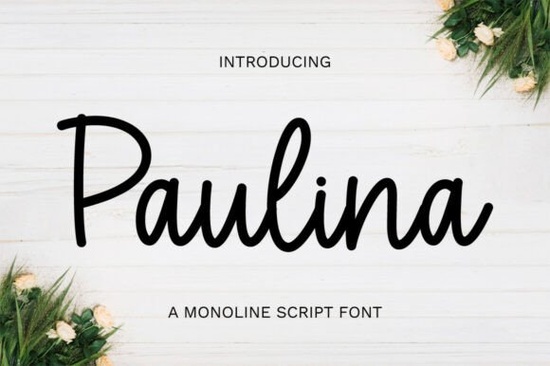
Finding a script font that feels both elegant and easy to read can be tricky. Paulina Font is one of those rare typefaces that strikes a lovely balance. It’s a graceful, well-balanced script with smooth curves, and it works beautifully for anything from fashion branding to editorial layouts. If you’ve been searching for a handwritten-style font that doesn’t sacrifice clarity, Paulina is worth a close look. You can find it over at Paulina.
What does the Paulina font look like?
Paulina is a flowing script font with a natural, calligraphic feel. The letterforms are well-balanced, meaning no single character feels too heavy or too light. The strokes have a slight contrast thicker on the downstrokes, thinner on the upstrokes which mimics real penmanship. The terminals and swashes are smooth, not overly ornate, so the font keeps a clean, modern look while still feeling personal. It’s the kind of typeface that adds a hand-touched elegance without becoming fussy.
Because the curves are gentle and the spacing is even, Paulina reads well at larger sizes. That makes it suitable for headers, logos, and short quotes, but you can also use it for accent lines on invitations or product packaging.
Who should use Paulina?
This font fits a range of projects, but it shines brightest for certain audiences:
- Fashion designers and boutique owners looking for a signature logo or hangtag script.
- Print-on-demand sellers creating mugs, tote bags, or t-shirt designs with a romantic or chic vibe.
- Wedding stationery designers who need an elegant invitation font that feels personal but not too casual. If you want a slightly more decorative alternative for weddings, you might explore another graceful option that pairs well with Paulina.
- Small business owners crafting their own social media graphics or website headers.
- Crafters and scrapbookers who like to add beautiful text to their projects.
How does Paulina compare to other script fonts?
There are many script fonts out there, each with its own personality. Paulina leans toward refined simplicity. Unlike some heavily flourished scripts, it stays legible and doesn’t distract from the message. If you’ve ever tried a font that was too thin or too swirly for a logo, you’ll appreciate Paulina’s sturdiness.
For instance, Ellegrin offers a similar lightness but with a slightly more playful feel you can learn more about it here. Delightful Handwriting, on the other hand, has a warmer, more casual tone, while still remaining neat you can read about it in this comparison. If you need something with a strong signature style, Amorate Signature has a bolder, more dramatic swash, perfect for high-end branding you can check out the details in this overview. Paulina sits in the sweet spot: elegant but not overly formal, modern but still warm.
Where does Paulina work best in a design?
This font thrives in specific contexts where you want to add a touch of sophistication without overwhelming the viewer. Some ideal uses:
- Logo design: Fashion labels, beauty brands, or lifestyle blogs.
- Editorial spreads: Magazine pull quotes or feature titles.
- Product packaging: Cosmetics boxes, candle labels, or gourmet food tags.
- Social media banners: Announcements, motivational quotes, or event promotions.
- Greeting cards and invitations: It adds a personal, hand-lettered feel that digital-only fonts sometimes lack.
Because Paulina’s smooth curves are easy on the eyes, it works in both print and digital formats without losing its shape. Even at smaller sizes, the letters remain distinct though for body text, you’ll still want a simple sans-serif companion.
How can you pair Paulina with other fonts?
A good script font like Paulina often needs a clean partner for balance. A neutral sans-serif such as Montserrat, Lato, or Open Sans will keep the overall design grounded. If you prefer a serif pairing, try a light, modern serif like Cormorant Garamond for an editorial look. Avoid anything too heavy or condensed, as it can clash with Paulina’s delicate strokes.
You can also layer multiple script fonts cautiously. For example, use Paulina for the main headline and a small accent font for secondary details. Just be careful not to mix too many similar scripts it can make the design feel cluttered. When in doubt, less is more.
Is Paulina easy to use for beginners?
Yes. The font installs like any standard OTF or TTF file and works in Canva, Photoshop, Illustrator, or even Word. Since Paulina includes alternates and ligatures in some versions, you can add a bit of swash or variation to letters if your design software supports OpenType features. Even without those extras, the default characters look polished right away.
For print-on-demand sellers, this font holds up well after resizing, as long as you maintain proper resolution. Crafters using cutting machines like Cricut or Silhouette will appreciate that the smooth curves cut cleanly without intricate details getting lost.
- Pair it with a simple sans-serif for body copy.
- Experiment with different letter spacing for a custom look sometimes a tiny adjustment makes all the difference.